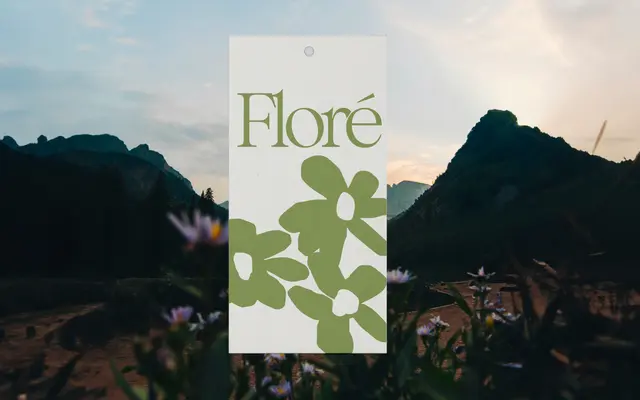
A transitional serif with embellished terminals and sharp serifs, drawing on classical forms and Greek mythological themes.
Spanning four weights from Light to Bold, Elysian takes its cues from transitional serif conventions while adding decorative terminal treatments and classically-styled numerals. The glyph set covers Latin Extended characters including diacritics for Central European languages, alongside a Cyrillic range. It sits comfortably in editorial and branding contexts where a touch of classical elegance is wanted without straying too far from convention.
The foundry explicitly classifies Elysian as a transitional serif, with sharp serifs, embellished terminals and classically-styled numerals consistent with that tradition.